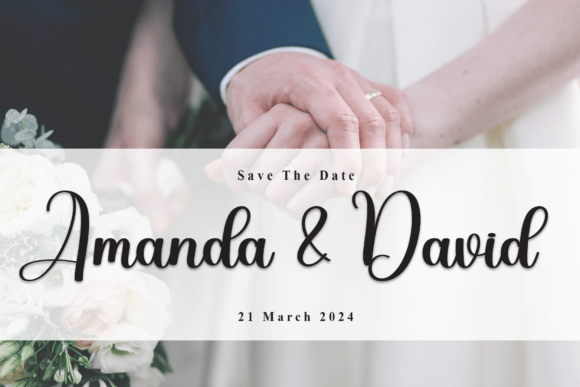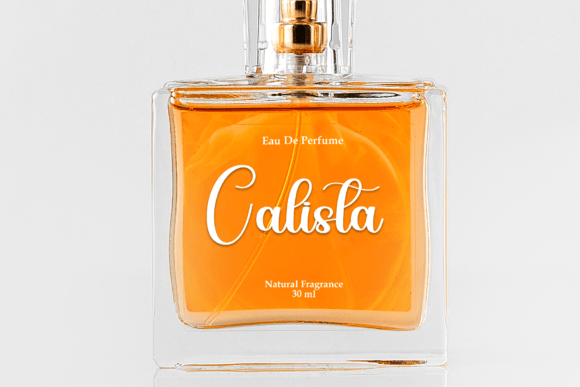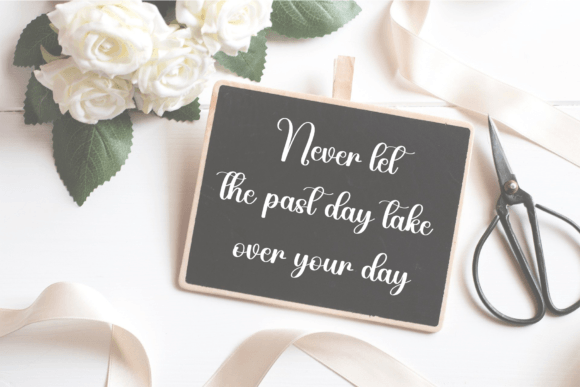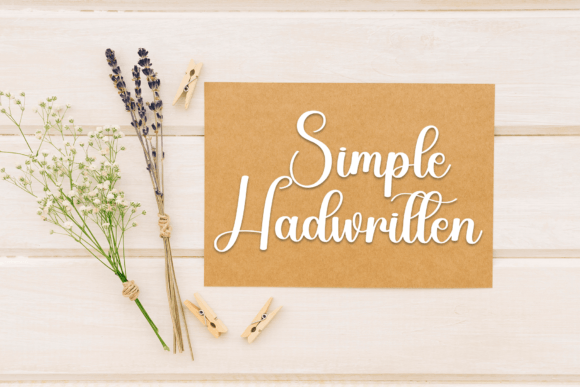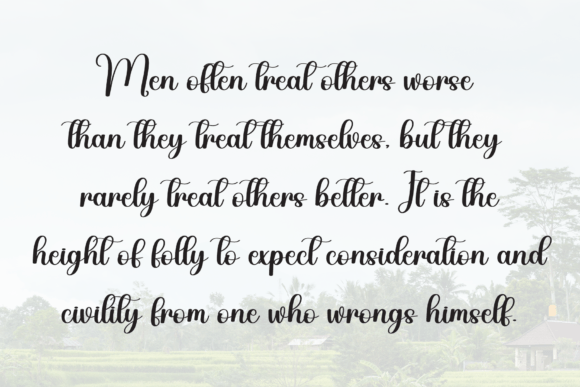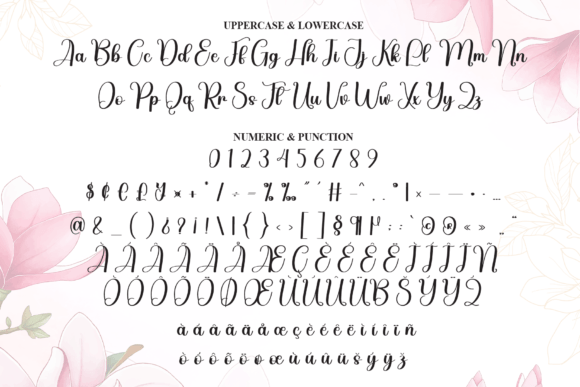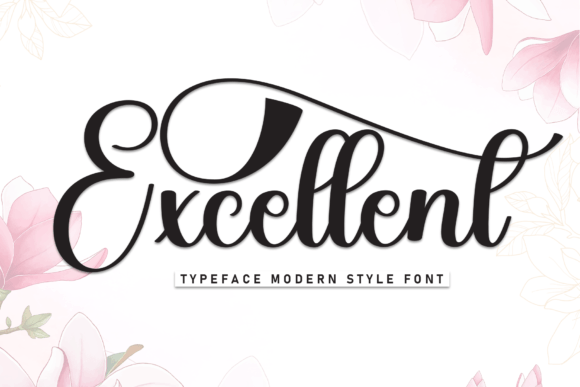
Introducing Excellent Font: The Sweet and Friendly Handwritten Display Font
Are you looking for a font that can add a touch of whimsy and fun to your designs? Look no further than Excellent Font, a sweet and friendly handwritten display font that’s perfect for creating eye-catching wedding invitations, cards, and other creative projects. In this article, we’ll take a closer look at Excellent Font, its features, and how you can use it to elevate your designs.
What is Excellent Font?
Excellent Font is a beautiful handwritten display font that’s designed to bring a smile to your face. With its cute and fun appearance, this font is ideal for designers and crafters who want to add a personal touch to their work. Whether you’re creating wedding invitations, greeting cards, or social media graphics, Excellent Font is the perfect choice.
Key Features of Excellent Font
- Handwritten appearance: Excellent Font has a natural, handwritten look that’s perfect for creating personal and heartfelt designs.
- Cute and fun: This font is designed to be playful and fun, making it ideal for designs that require a lighthearted touch.
- Display font: Excellent Font is a display font, which means it’s perfect for headlines, titles, and other prominent text elements.
- Easy to read: Despite its playful appearance, Excellent Font is easy to read, making it perfect for body text and other longer blocks of text.
Use Cases for Excellent Font
So, how can you use Excellent Font in your designs? Here are a few ideas to get you started:
- Wedding invitations: Excellent Font is perfect for creating beautiful and unique wedding invitations that set the tone for the big day.
- Greeting cards: This font is ideal for creating fun and playful greeting cards for birthdays, holidays, and other special occasions.
- Social media graphics: Excellent Font can add a touch of personality to your social media graphics, making them stand out in a crowded feed.
- Branding and packaging: This font can also be used for branding and packaging design, adding a playful touch to your logo and product labels.
Tips for Using Excellent Font
Here are a few tips for getting the most out of Excellent Font:
- Use it sparingly: Excellent Font is a display font, so it’s best to use it sparingly to add emphasis and interest to your designs.
- Pair it with a simple font: Pair Excellent Font with a simple font to create visual interest and hierarchy in your designs.
- Experiment with colors and textures: Don’t be afraid to experiment with different colors and textures to add depth and interest to your designs.
Excellent Font is a sweet and friendly handwritten display font that’s perfect for adding a touch of whimsy and fun to your designs. With its cute and playful appearance, this font is ideal for designers and crafters who want to create eye-catching wedding invitations, cards, and other creative projects. Whether you’re a seasoned designer or just starting out, Excellent Font is a great addition to your font library.